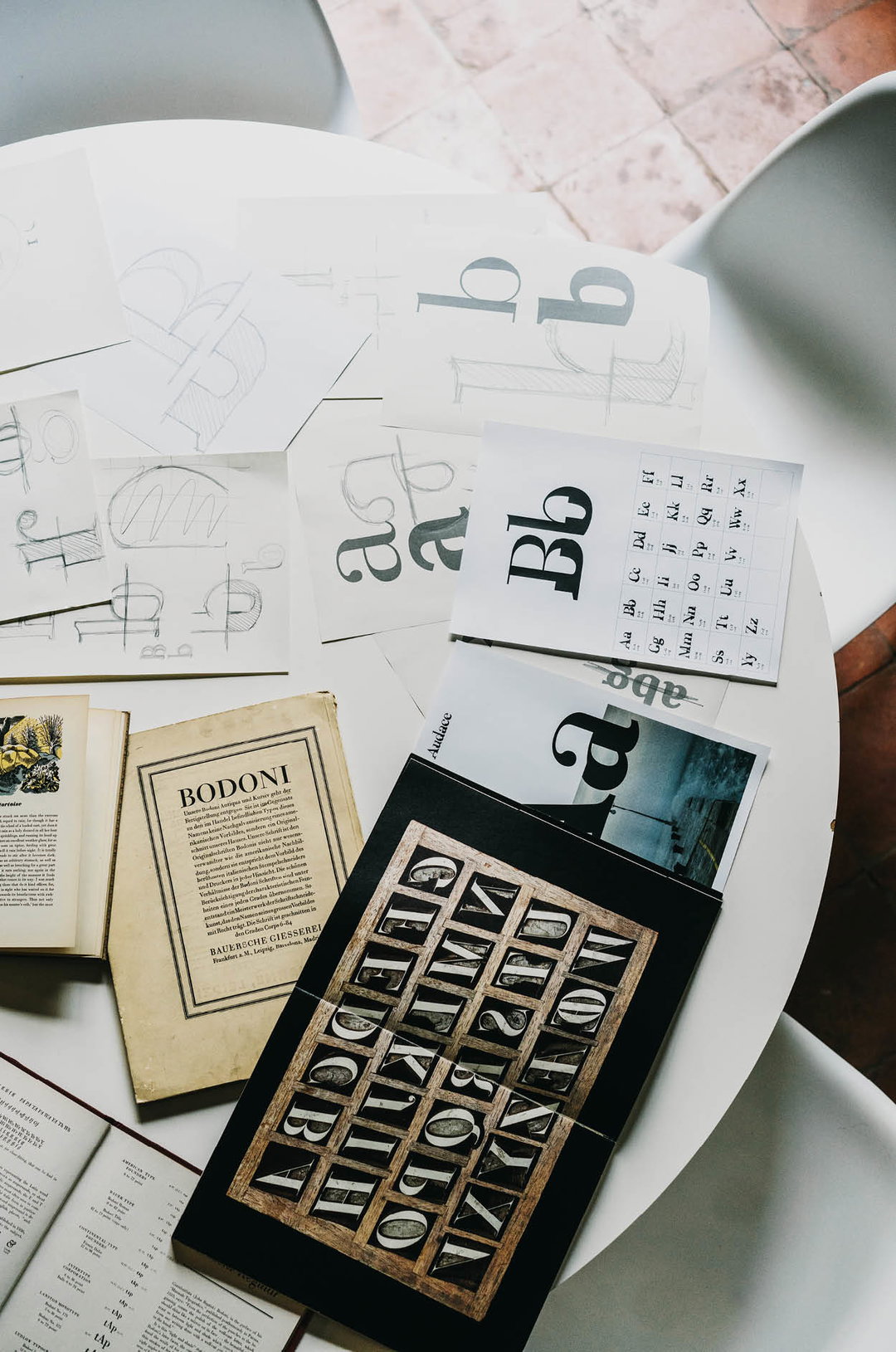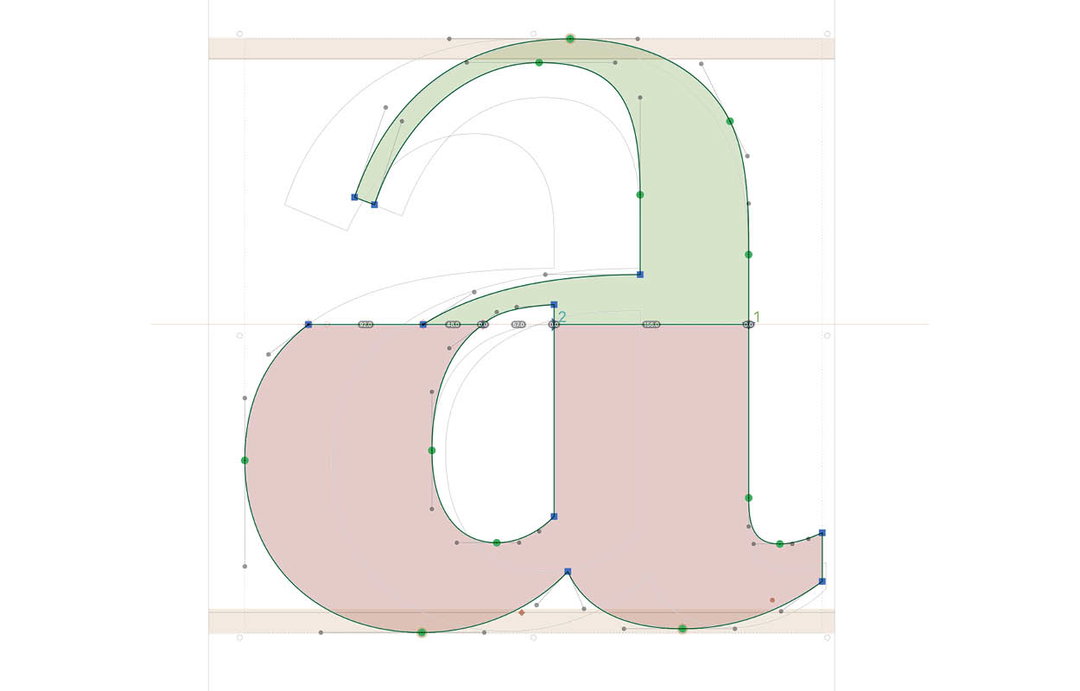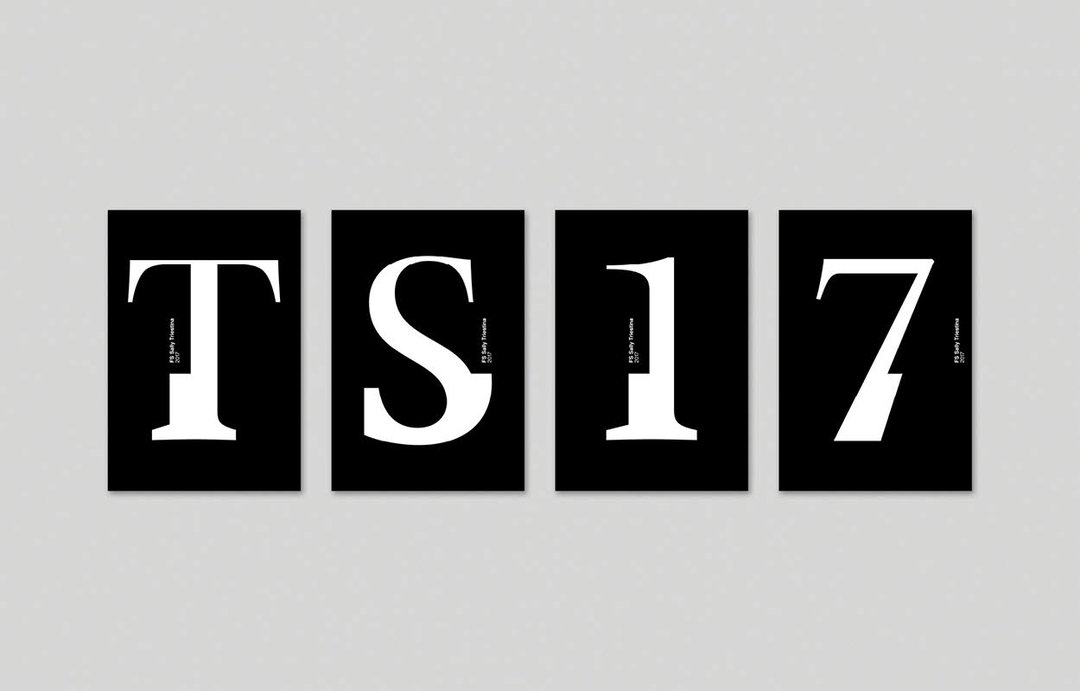
Two people lean over a wooden box filled with metal typesetting blocks. The word “Trieste” is laid over the centre of the image in a bold, white serif typeface.
Local Characters: Astrid Stavro’s tailored typeface showcases the split personality of Trieste
This winter It’s Nice That commissioned three creatives to explore the broader possibilities of type, in partnership with Fontsmith. The result is Local Characters, a series of posters and typefaces inspired by each creative’s hometown. In this second instalment creative director of Atlas, Astrid Stavro, tailors the Fontsmith typeface FS Sally, to represent the split personality of her birthplace, Trieste, Italy.
Trieste, a city in northeastern Italy, is a puzzle. Throughout the city, architecture and nationalities intermix lucidly, in a naturally laid back style that only the Italians can master. It’s the birthplace of Astrid Stavro, the creative director of design consultancy Atlas, and the sensibilities of the city have influenced her nomadic existence consistently.
From the age of five Astrid has moved around globally, from Trieste to Madrid, to Boston, back to Madrid, across to the Netherlands, back to Madrid again, on to London and then Barcelona. For now she lives in Majorca but will be on the move again soon, relocating to New York this summer. As a result, selecting a hometown to base a typographic outcome upon wasn’t initially easy for the designer. “For me, home is really nowhere,” she explains. “I have lived in so many places that for me, home is wherever my son and I are. I don’t feel particularly Italian, or Spanish, or anything really.” However as a city, Trieste reflects Astrid’s feeling of multiculturalism.
A white table is covered in typography studies, including sketches of letters and printed specimen sheets. A black book of metal type blocks sits atop a book titled “Bodoni”.
Two people stand by a white circular table in a studio, looking at a piece of paper. Behind them, several vintage posters with bold typography are pinned to a white wall.
A person in a striped sleeve pins a photograph of a warehouse to a white wall. Other photos of industrial spaces and equipment are already arranged around it.
Photographs of Astrid’s father’s typography archive in Trieste
“If you walk around the city of Trieste, you’ll notice it’s full of contrasts,” Astrid tells It’s Nice That. “The architecture is Austrian, you walk around and actually feel as if you’re in Vienna rather than Italy. There is also Roman architecture, sometimes in the same square. You’re also only ten minutes from Slovenia, so near that during the war you could actually hear the bombs, it’s that close.” This composition of not only buildings but actual countries, has built a city that the designer describes as schizophrenic. Therefore, this was to be the key representation of her typeface, FS Sally Triestina. Astrid settled on the idea to showcase the split personality of the city, and the multi-faceted nature of her personality.
Astrid saw the brief to tailor an existing Fontsmith typeface depicting her hometown as an opportunity to look back, to mirror the elements that have informed her career as a designer. “The brief was interesting, stimulating, but what particularly appealed to me was the reflective side of it. It referred to a sense of place, it linked to my identity, it made me think, who am I, where do I come from?” Consequently, Astrid phoned her father who she spent her holidays with in Trieste. These summer or winter breaks consisted of endless days in their family business, dating back to her great-great-great-grandfather, in a printing office with a publishing office on the floor above. This was Astrid’s playground, describing the wooden and metal blocks of type her father printed with as her legos. Now a creative director, Astrid regularly calls on her father as a personal consultant. “I already have a number of wooden and metal letters from his office but I asked him to go back. He wasn’t very happy with me, hating It’s Nice That and the whole thing because of the four-hour drive to where the boxes are kept. But, he delved into it, sending me amazing photographs of old catalogues, the typefaces they originally used for printing. To have my father involved in the process was really lovely.”
Metal letterpress type is scattered across a wooden workbench and stored in shallow trays. A small label on a wooden box reads “28 PIACENZA”.
A person with glasses and a bald head leans over a cardboard box, holding a pencil in their mouth. They look down at dark, geometric objects packed inside the box.
A digital vector illustration of a lowercase “a” being designed in a typeface software. The letter is split into two coloured sections, with green anchor points and blue handles marking the paths.
These references were to help refine the selection of a typeface. Influenced by original Italian typefaces, Astrid chose FS Sally, which she describes as “a beautifully crafted, elegant typeface that closely reflected the ones used by my father”. FS Sally is a slender serif typeface with an adaptable rhythm. “We also thought it would be the best one to create a high contrast in type,” elaborates Astrid. From there, Astrid and her senior designer Igor, coincidently also from Trieste, began to draw. “We did everything by hand which we normally do with all of our projects, suggesting ideas to Fontsmith with pencil and paper.” The idea was to merge two typefaces, representative of Trieste’s split personality in both architecture, its natives and Astrid herself. FS Sally showcases a gentler side, attenuated against a bolder font, portraying the block letters from Astrid’s father’s archive. “We started to really look at the typeface in detail,” says the designer, “we looked very very closely to decide the perfect cut to create a high contrast typeface”. The process from this point mirrors the way Fontsmith tailor their fonts through Brandfont, “a ping pong game in-between us and them,” Astrid describes. Jason Smith, Fontsmiths’ founder explains the approach to the brief similarly, “The process was really collaborative with a lot of back and forth. We were open to their ideas and they were open to ours so it was a really enjoyable process.”
To accommodate Astrid and Igor’s original sketches Fontsmith’s Senior Designer Fernando Mello adjusted FS Sally Regular, increasing the contrast, “to make it closer to the Modern style,” Jason explains. “He then needed to redraw the top serifs, making them a bit longer and more in tune with the higher contrast. The new modified version of FS Sally Regular was then spliced with the Bold version around the midline and the kerning adjusted. Importantly, not all the letters worked first time round so we had to make subtle changes to the design. For some of the letterforms we provided two alternatives so Astrid could discuss which one she preferred. We also extended the character set to include math symbols and punctuation to make a fully functioning typeface.”
A person wearing glasses and a striped blazer sits at a white desk, looking at a computer screen. A smartphone, a notebook and a pencil lie on the desk beside them.
A collection of design posters hangs on a white wall above a desk. The posters feature names such as “Dieter Rams”, “Jasper Morrison” and “Kenya Hara” alongside product photography. Below, a desk holds a computer monitor displaying a typeface, a silver lamp and a bookshelf filled with books.
Specimen sheet of FS Sally Triestina